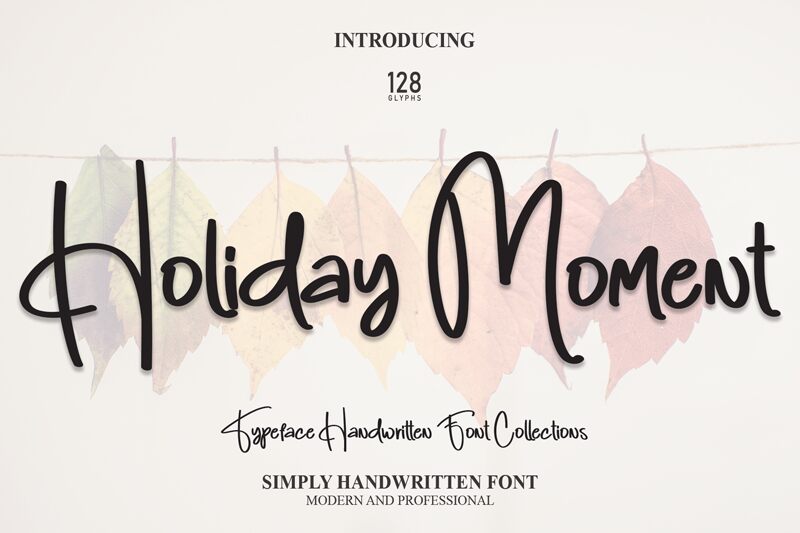
Holiday Moment
Holiday Moment, a whimsical handwritten font by Scratchones, brings joy and playfulness to your projects.
Its light weight adds an airy feel to any design, perfect for greeting cards, party invitations, or children's books. With its charming curves and unique character variations, this font captures the essence of carefree holidays by the beach or cozy winter evenings by the fireplace. Let Holiday Moment bring a touch of magic to your designs, whether it's creating delightful social media graphics or crafting beautiful wedding stationery.
Embrace the festive spirit with this delightful typeface!